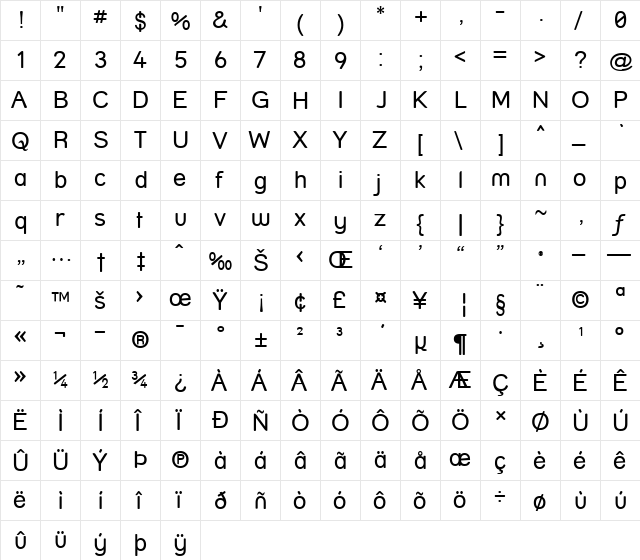
Street - Plain Regular
| Designer | Graham Meade |
Design Context for Street - Plain Typeface
Street - Plain takes a measured approach to typography — its balanced proportions and neutral character make it a reliable workhorse for both digital and print work.